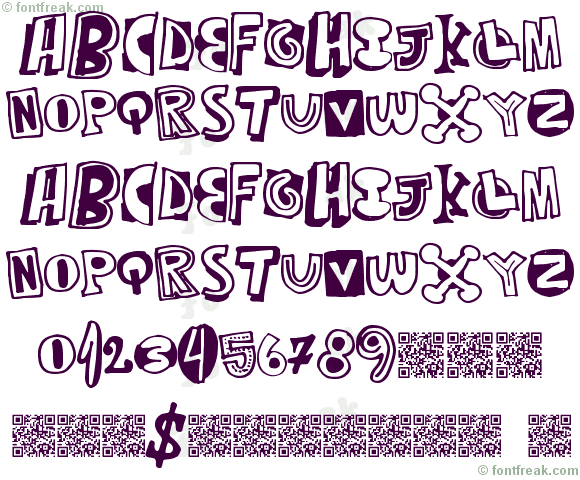
MixedThirty
About MixedThirty
MixedThirty by XEROGRAPHER FONTS is a captivating display font that blends playful creativity with a distinctive edge. Released in 2013, this font falls into the category of decorative typefaces, making it ideal for projects that require a unique touch. The visual characteristics of MixedThirty are striking, featuring a mix of bold strokes and varying weights that create a dynamic appearance. The letters exhibit a delightful irregularity, with each character taking on a quirky shape that adds personality and charm. The spacing between the letters is intentional, allowing for easy readability while still maintaining an artistic flair, making it suitable for both headlines and body text in certain contexts.
MixedThirty is particularly well-suited for a variety of creative applications. It shines in wedding invitations, where its whimsical style can convey a sense of fun and celebration. Additionally, it works wonderfully for movie posters, giving a vibrant and youthful energy that can attract attention. Restaurant menus can also benefit from this font, especially in casual dining settings where a relaxed atmosphere is desired. Furthermore, content creators and graphic designers can use MixedThirty for social media graphics, where its eye-catching design can enhance engagement.
The target audience for this font includes graphic designers, small business owners, and content creators looking to make a memorable impression. Whether used in branding or promotional materials, MixedThirty’s unique aesthetic stands out in a crowded marketplace.
In conclusion, MixedThirty is more than just a typeface; it is a versatile tool for creative expression. Its free availability as a freeware font makes it accessible for anyone looking to inject a sense of fun and originality into their projects. Don't miss the chance to explore the MixedThirty font free download and elevate your design work with this exceptional typeface.